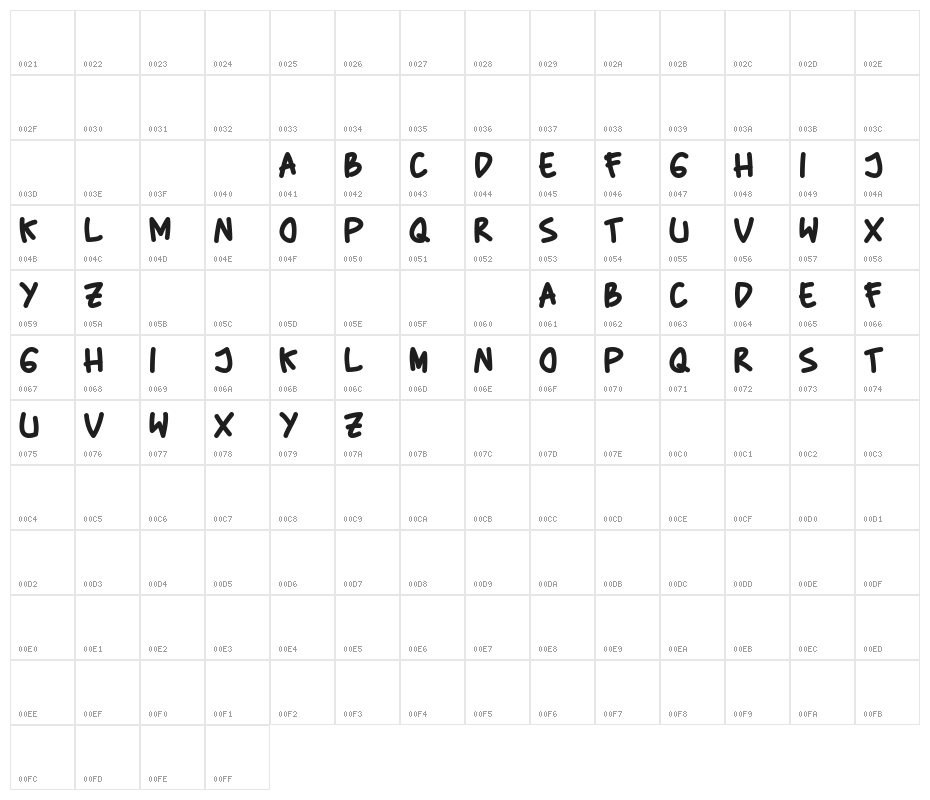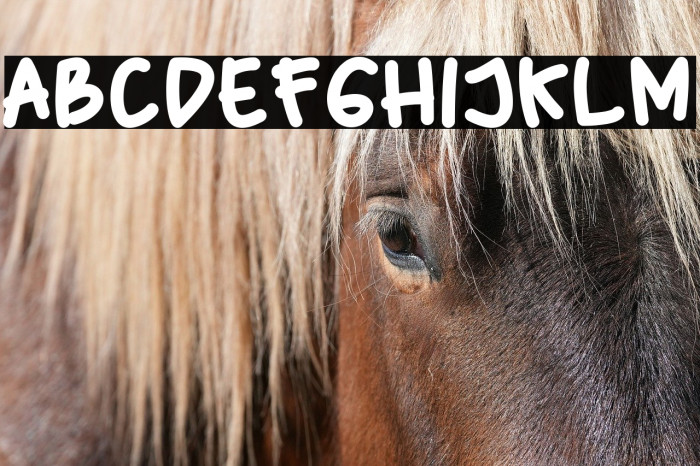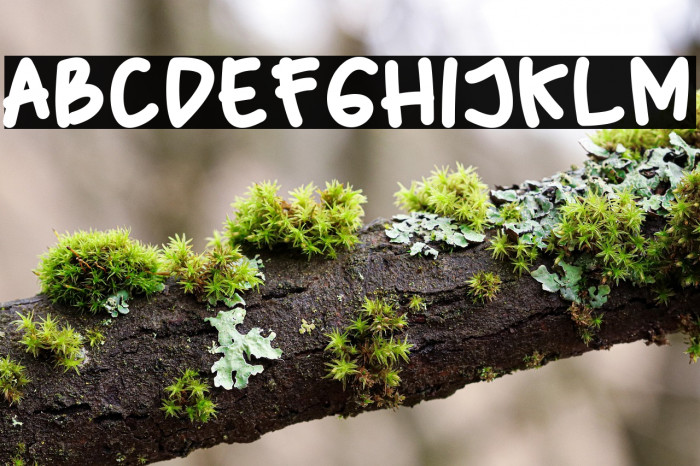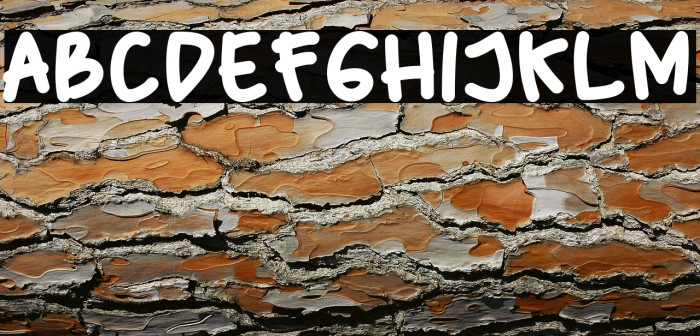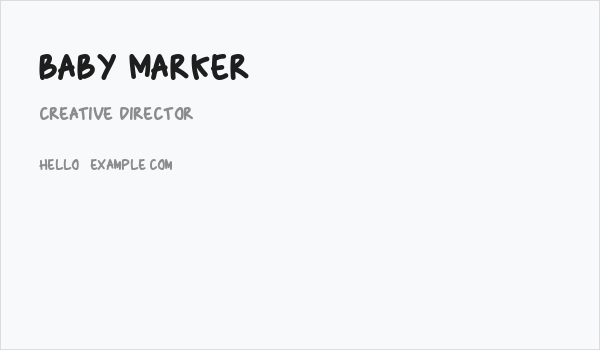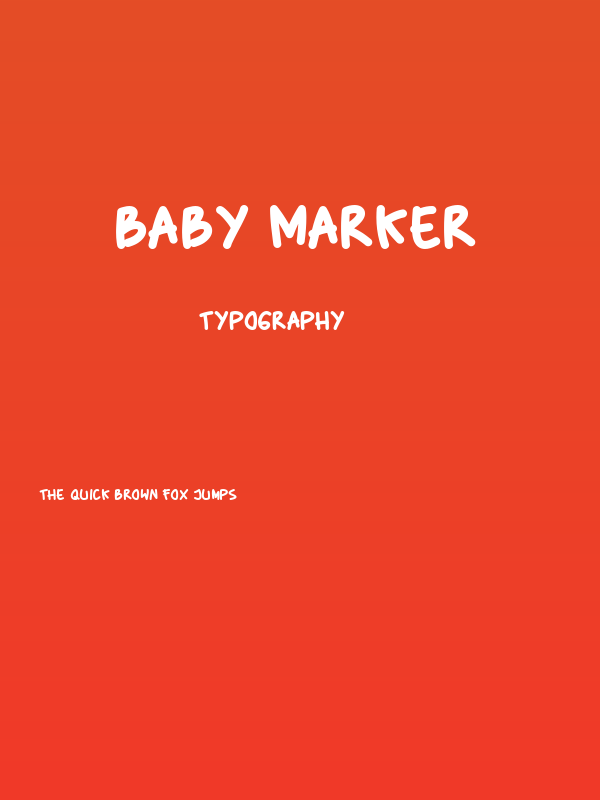
Baby Marker Font
Baby Marker Description
This playful and bold font exudes a casual, handwritten style reminiscent of marker writing. The characters are rounded and slightly irregular, giving them a friendly and approachable appearance. The uppercase and lowercase letters maintain a consistent thickness, contributing to a uniform look across the text. The font's informal nature makes it ideal for projects that require a personal touch or a sense of fun. It is particularly well-suited for children's materials, creative projects, and informal branding. The spacing between characters is balanced, ensuring readability while maintaining the font's playful aesthetic.
| Use Case | Headlines, Informal branding, Children's materials |
| Proposed Projects | Ideal for children's books, playful branding, greeting cards, and creative projects. |